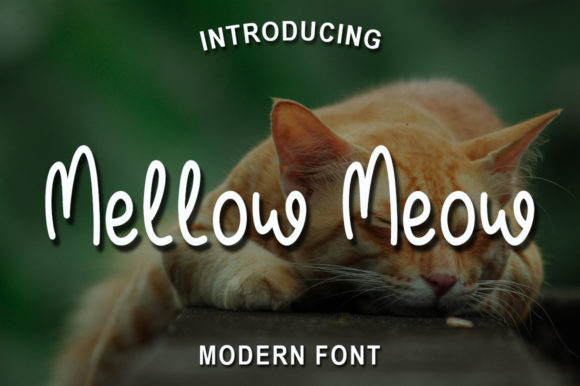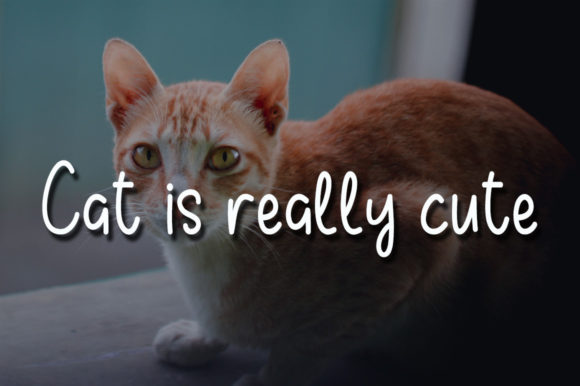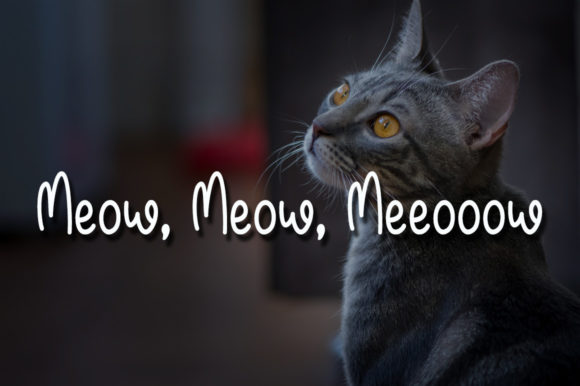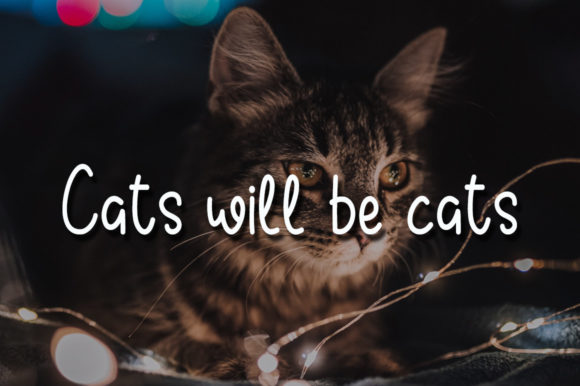
Mellow Meow Font
About Mellow Meow Font
Mellow Meow is a sweet yet elegant script font. Suitable to a wide variety of designs due to its neat and simple style, this font has the potential to become your favorite go-to font, no matter the occasion!